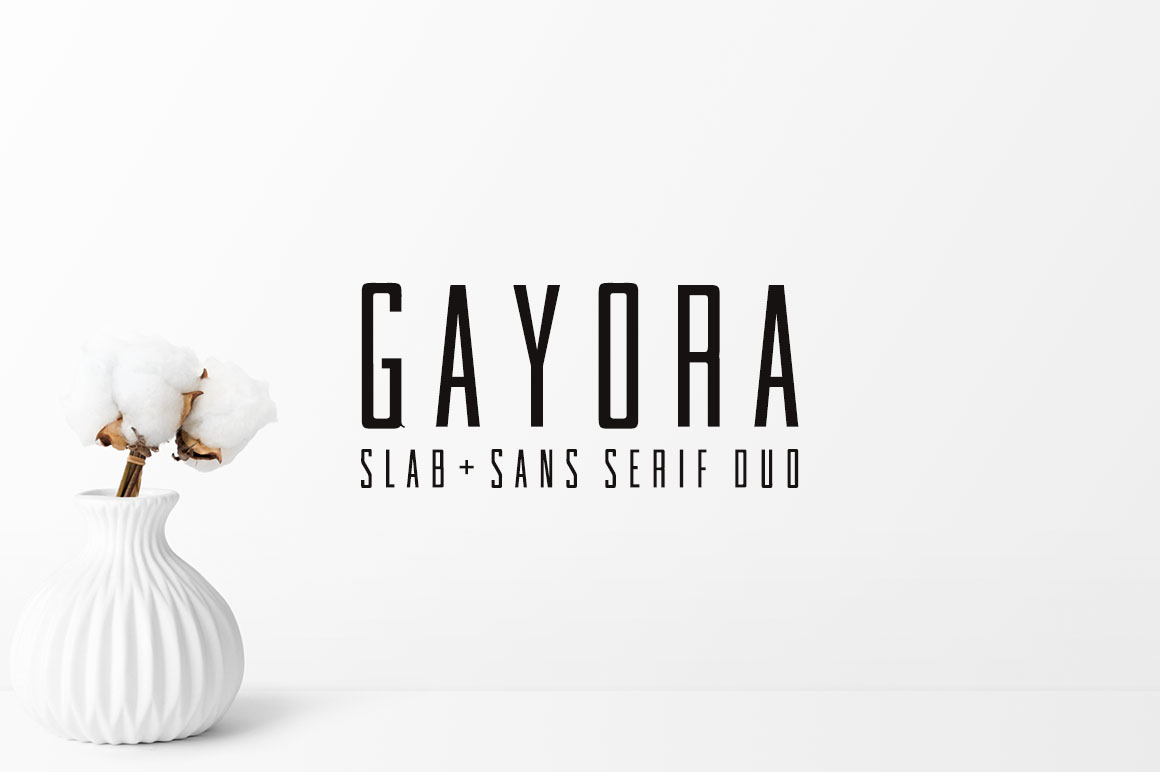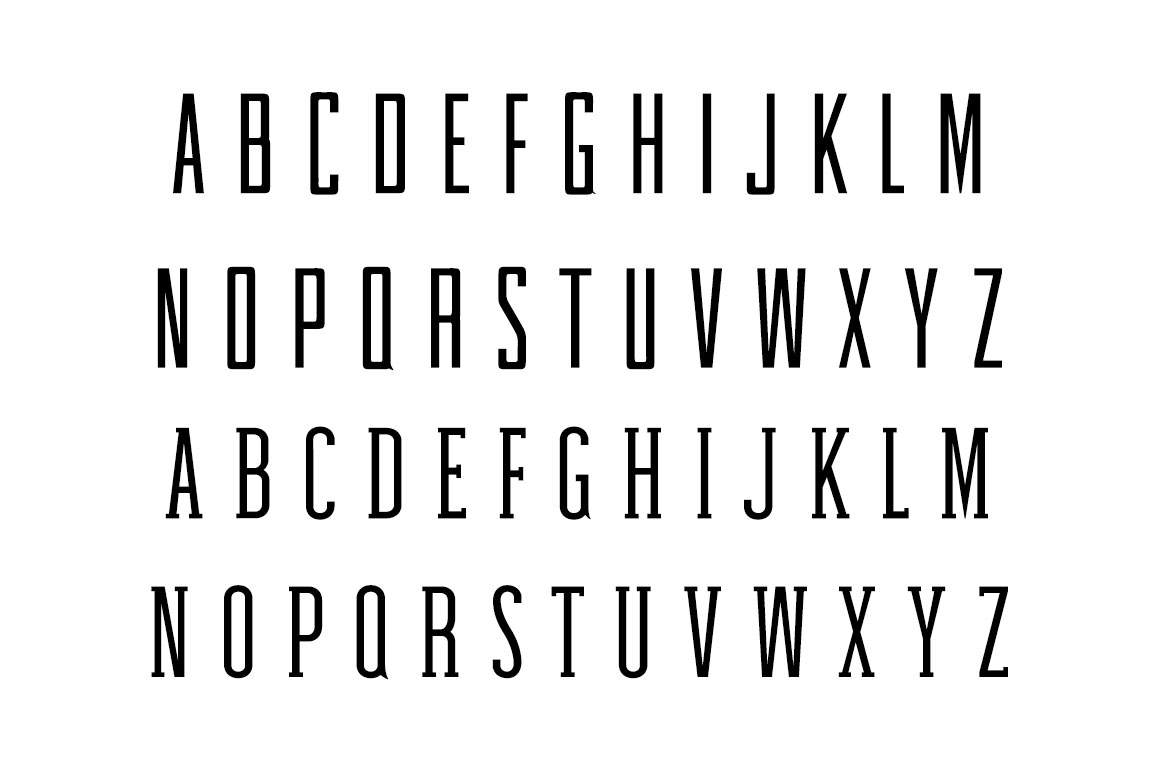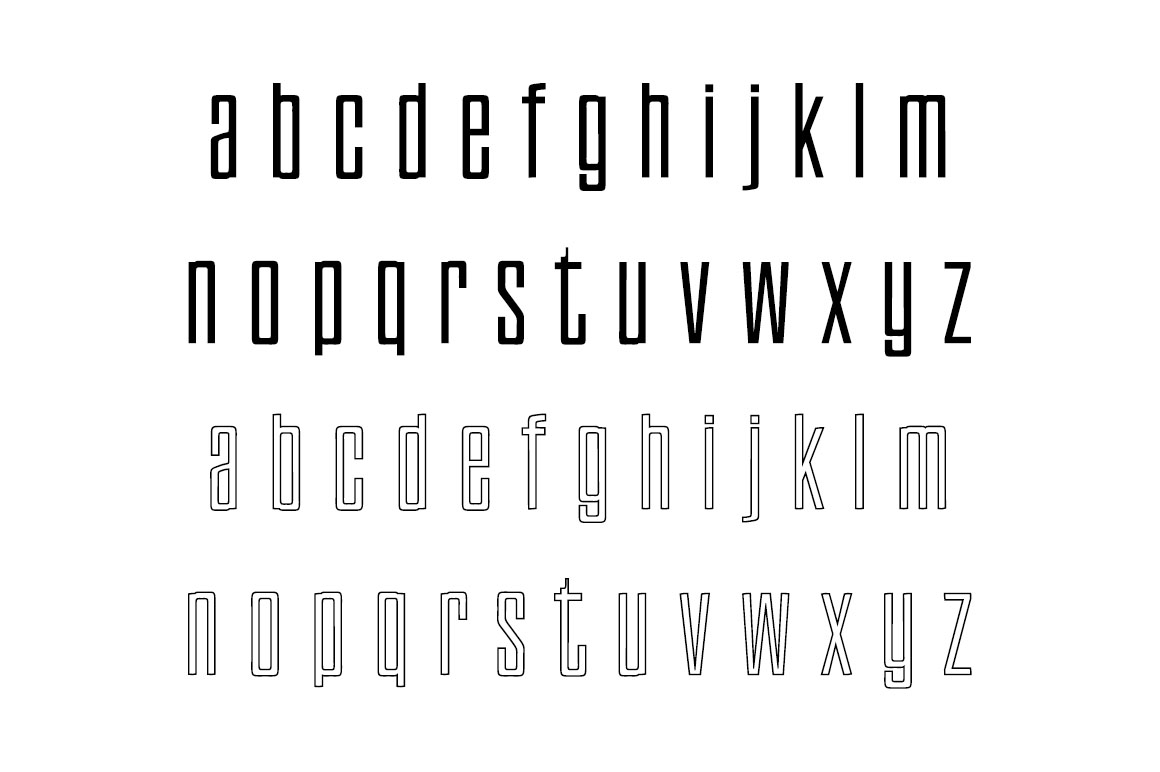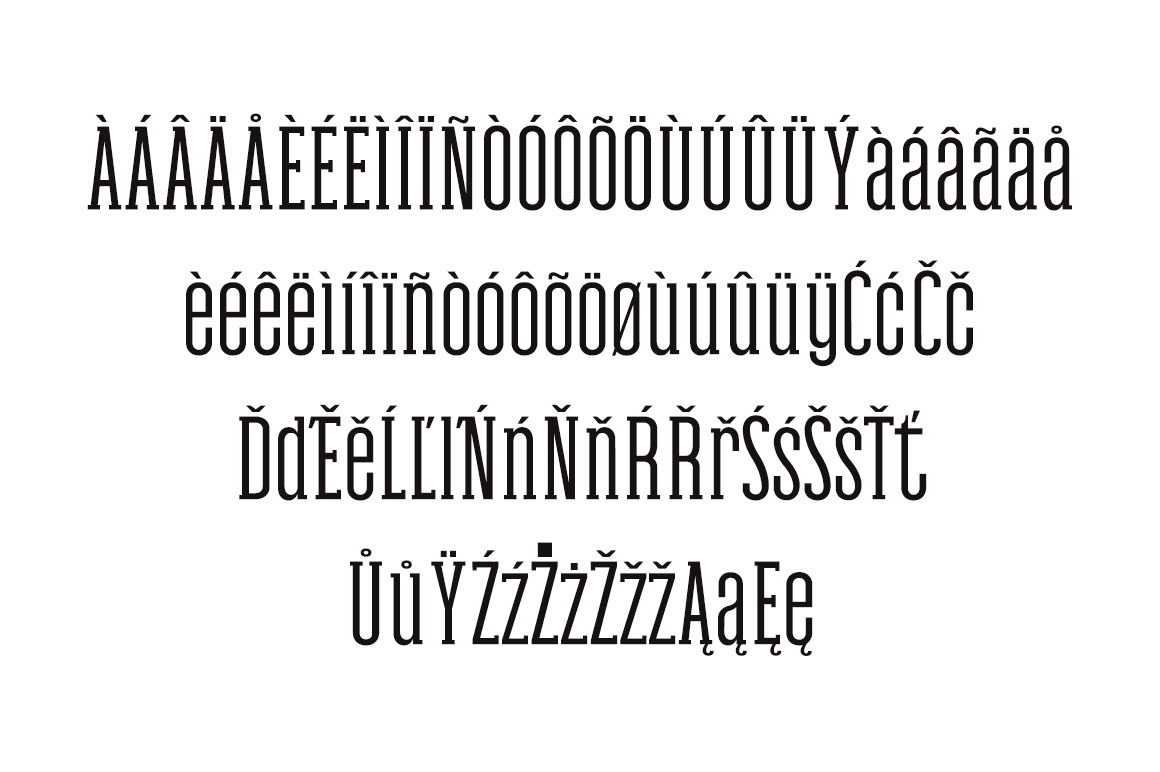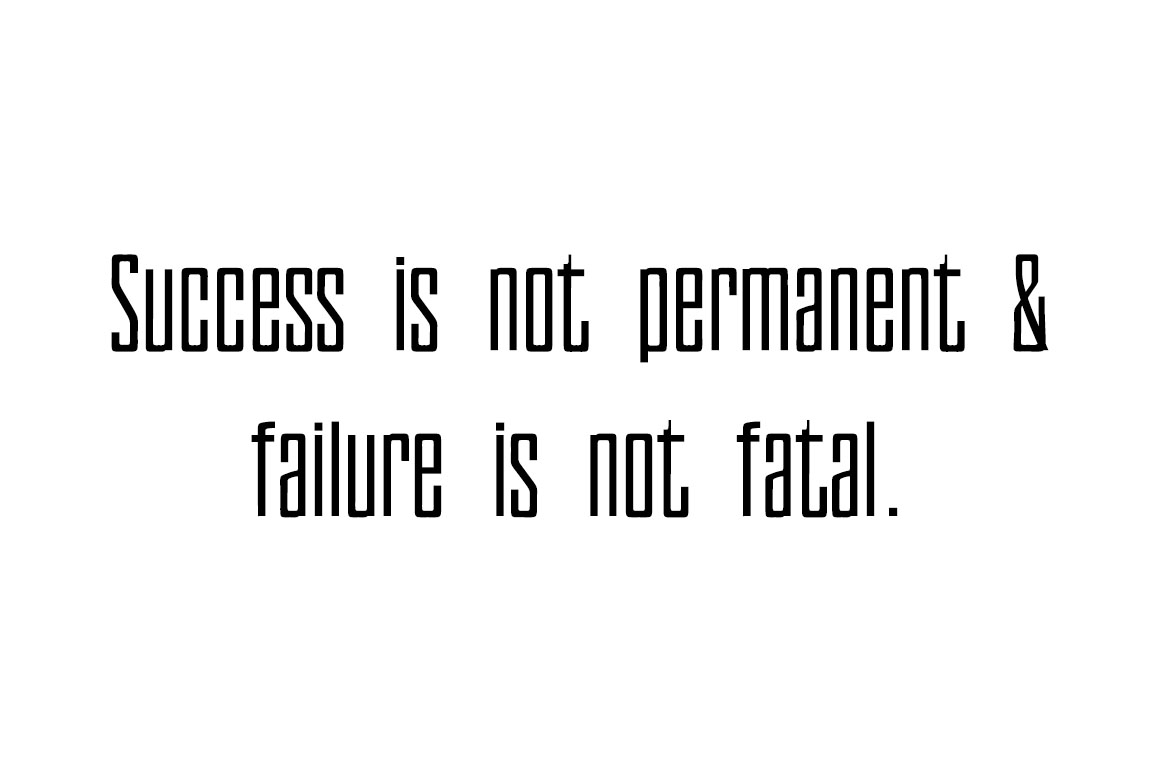
About Gayora
The Gayora Duo is a clean, vibrant font with a minimal style. This serif font comes as a sans & slab serif and has a strong characters, making it very useful for projects that need to have an elegant style but also need to leave an impression.